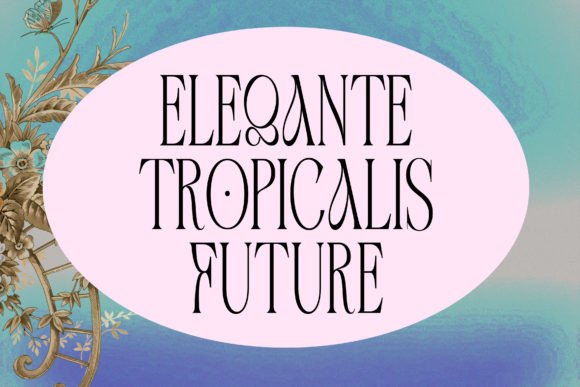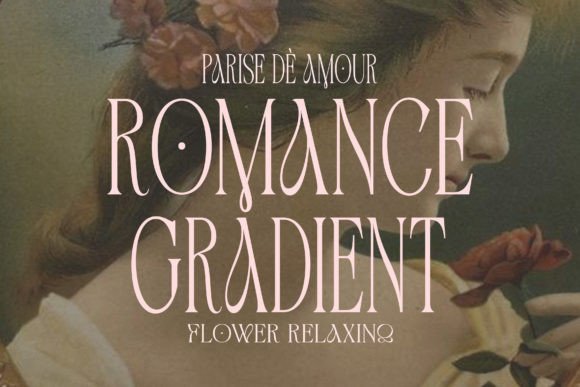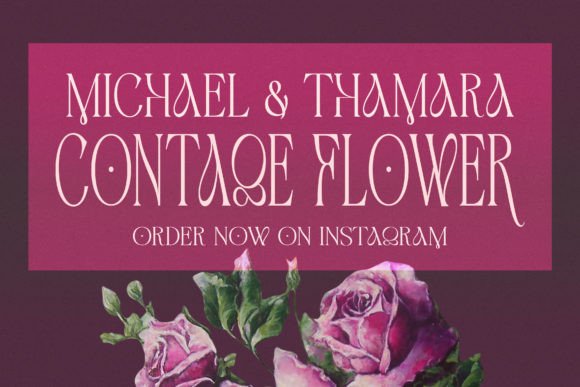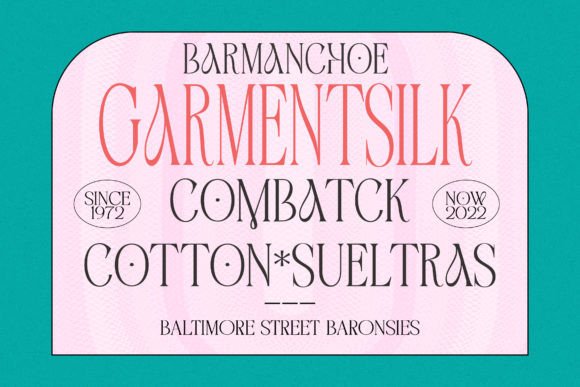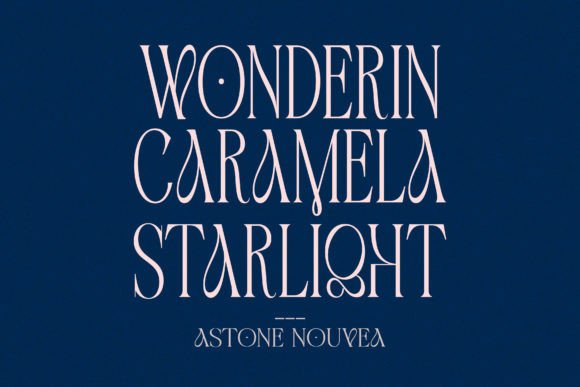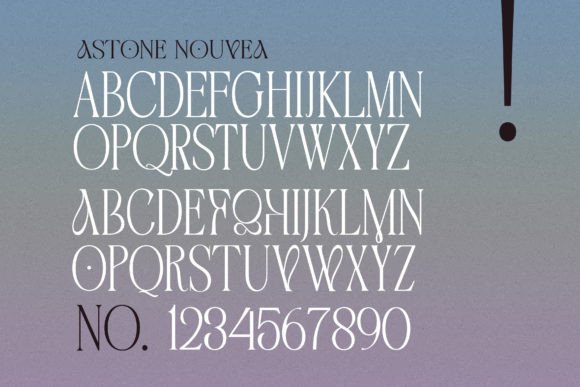
Astone Nouvea Font: Elevate Your Brand and Logo Designs with Elegance
In the world of design, fonts play a crucial role in conveying the message and aesthetic of a brand. A well-chosen font can make all the difference in creating a lasting impression on customers. If you’re a designer looking for a unique and elegant serif font to take your brand and logo designs to the next level, look no further than Astone Nouvea. In this article, we’ll explore the features and benefits of Astone Nouvea and why it’s the perfect choice for designers and crafters.
What is Astone Nouvea Font?
Astone Nouvea is a distinctive serif font designed specifically for brand and logo designs. Its unique blend of elegance and sophistication makes it an ideal choice for designers who want to create logos that stand out from the crowd. With Astone Nouvea, you can fulfill your customers’ requests for logos with a unique style and an elegant shape.
Key Features of Astone Nouvea Font
- Unique and Elegant Design: Astone Nouvea boasts a one-of-a-kind design that exudes elegance and sophistication. Its serif details add a touch of refinement, making it perfect for high-end brands.
- Versatility: This font is versatile and can be used for a wide range of design projects, from logos and branding to packaging and advertising.
- Classy and Sophisticated: Astone Nouvea is designed to create a classy and sophisticated look, making it ideal for luxury brands, fashion designers, and high-end businesses.
Benefits of Using Astone Nouvea Font
So, why choose Astone Nouvea for your design projects? Here are some benefits you can expect:
- Stand Out from the Crowd: With Astone Nouvea, you can create unique and eye-catching logos that set your customers’ brands apart from the competition.
- Elegance and Sophistication: This font adds a touch of elegance and sophistication to any design project, making it perfect for high-end brands and luxury businesses.
- Easy to Read: Despite its elegant design, Astone Nouvea is easy to read, making it perfect for use in body text as well as headings.
- Time-Saving: With Astone Nouvea, you can save time and effort in creating custom logos from scratch. This font provides a solid foundation for your designs, allowing you to focus on other creative aspects.
Who Can Benefit from Astone Nouvea Font?
Astone Nouvea is an excellent choice for a wide range of designers and crafters, including:
- Graphic Designers: If you’re a graphic designer looking for a unique and elegant font for your logo and branding projects, Astone Nouvea is an excellent choice.
- Logotype Designers: This font is perfect for logotype designers who want to create custom logos with a touch of elegance and sophistication.
- Fashion Designers: Astone Nouvea is ideal for fashion designers who want to create high-end branding and packaging designs.
- Crafters and Makers: If you’re a crafter or maker looking for a unique font for your brand or product labels, Astone Nouvea is a great option.
In conclusion, Astone Nouvea is a unique and elegant serif font that’s perfect for brand and logo designs. Its sophisticated design, versatility, and ease of use make it an excellent choice for designers and crafters. Whether you’re a graphic designer, logotype designer, fashion designer, or crafter, Astone Nouvea is sure to elevate your designs to the next level. So why wait? Get your hands on Astone Nouvea today and start creating stunning logos and branding designs that will leave a lasting impression on your customers.